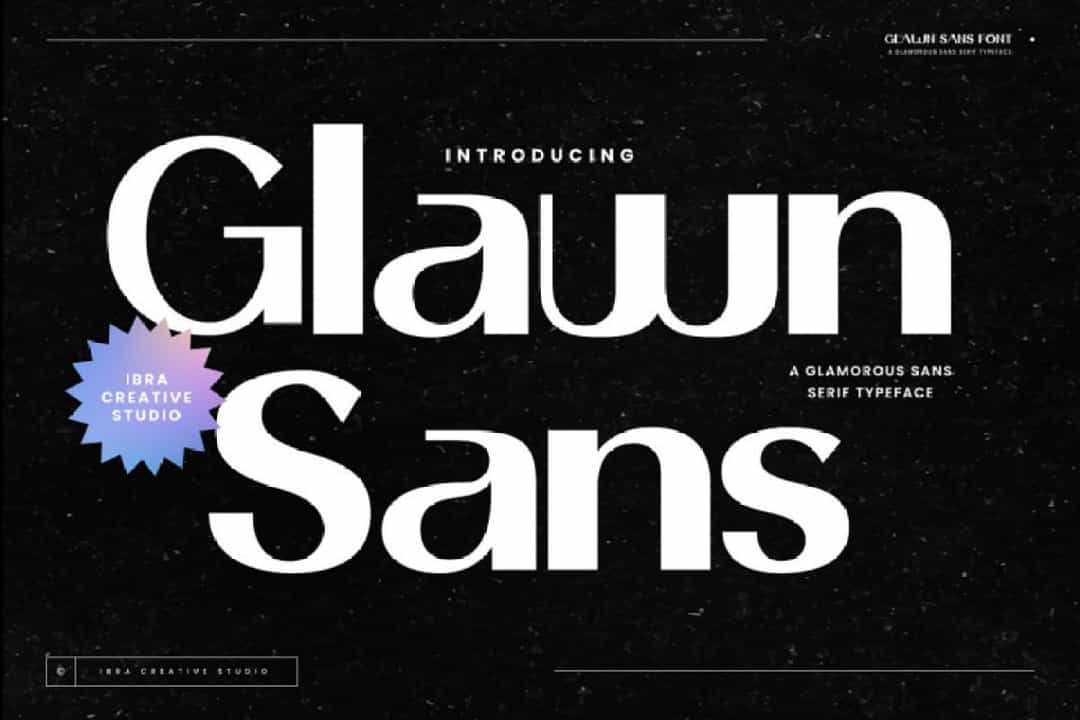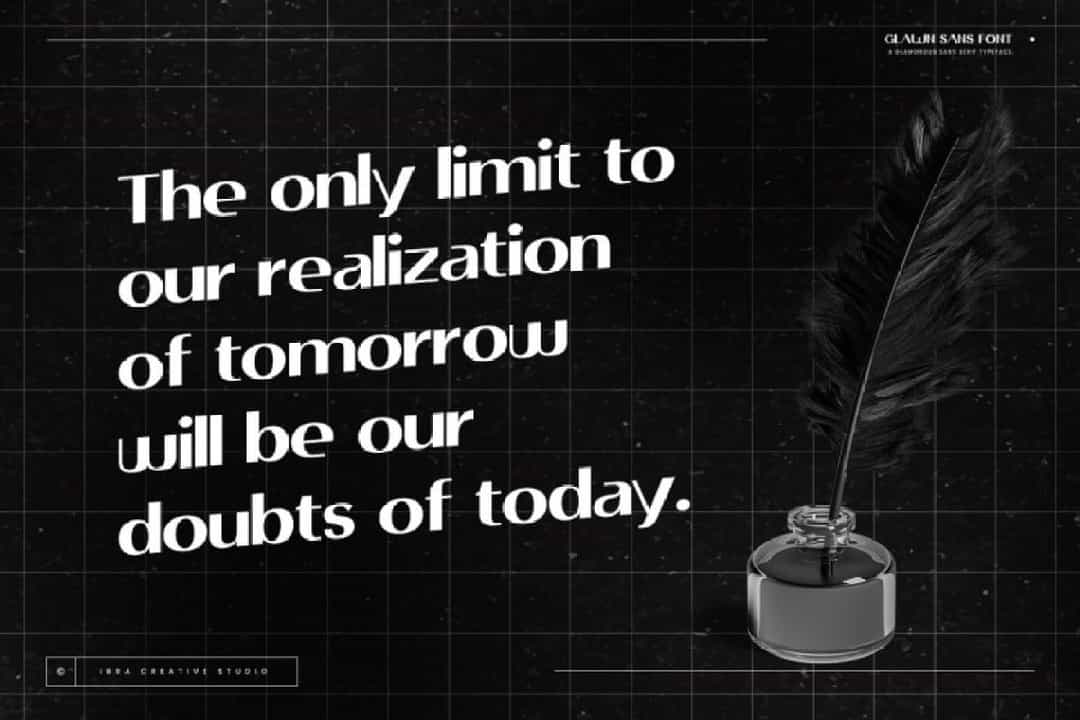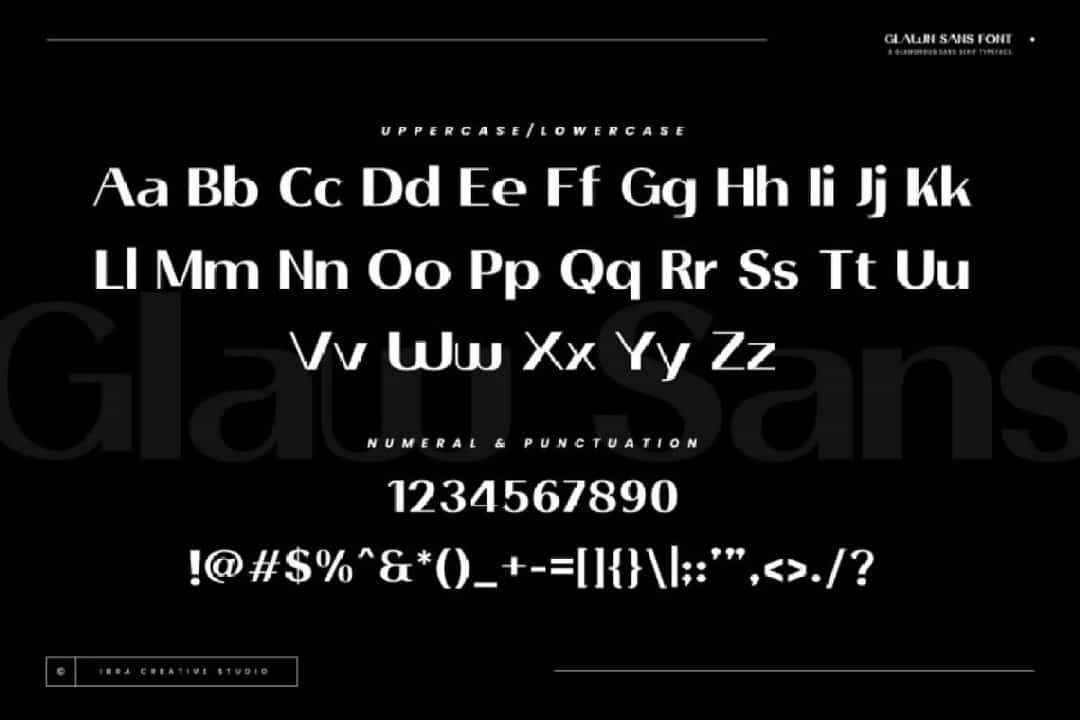
Glawn Sans is an exquisite sans-serif font that embodies contemporary elegance with its elegant lines and exquisite features. Each character is painstakingly designed to convey timeless beauty; all characters provide an impeccable combination of minimalism and extravagant style.